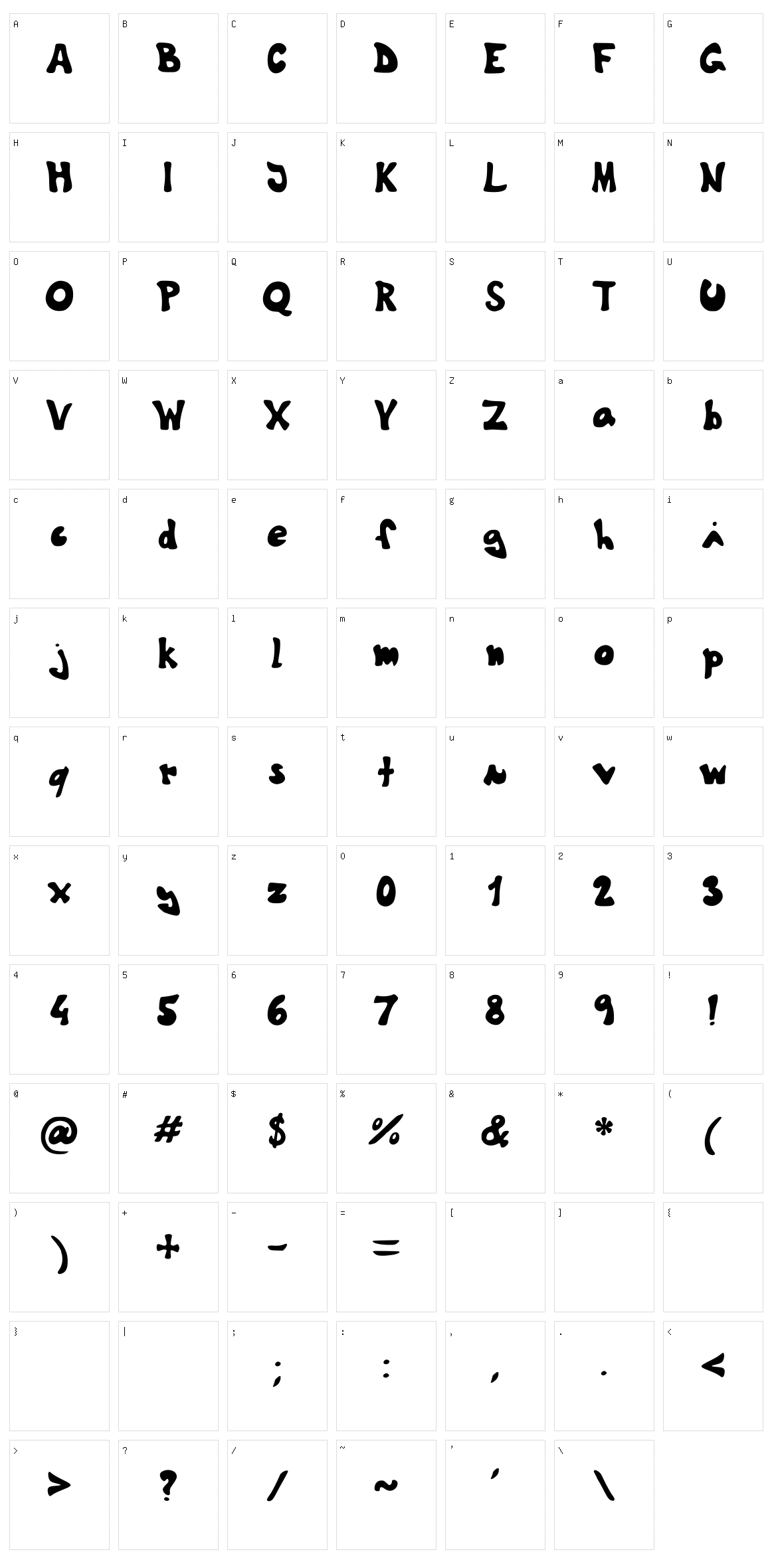
Font is created by Sabrina Jozová aka Angi Shy
The font will be used in the future for my comic and cartoon show called The Shy family.
There are two versions of the font... The normal one and the outlined one.